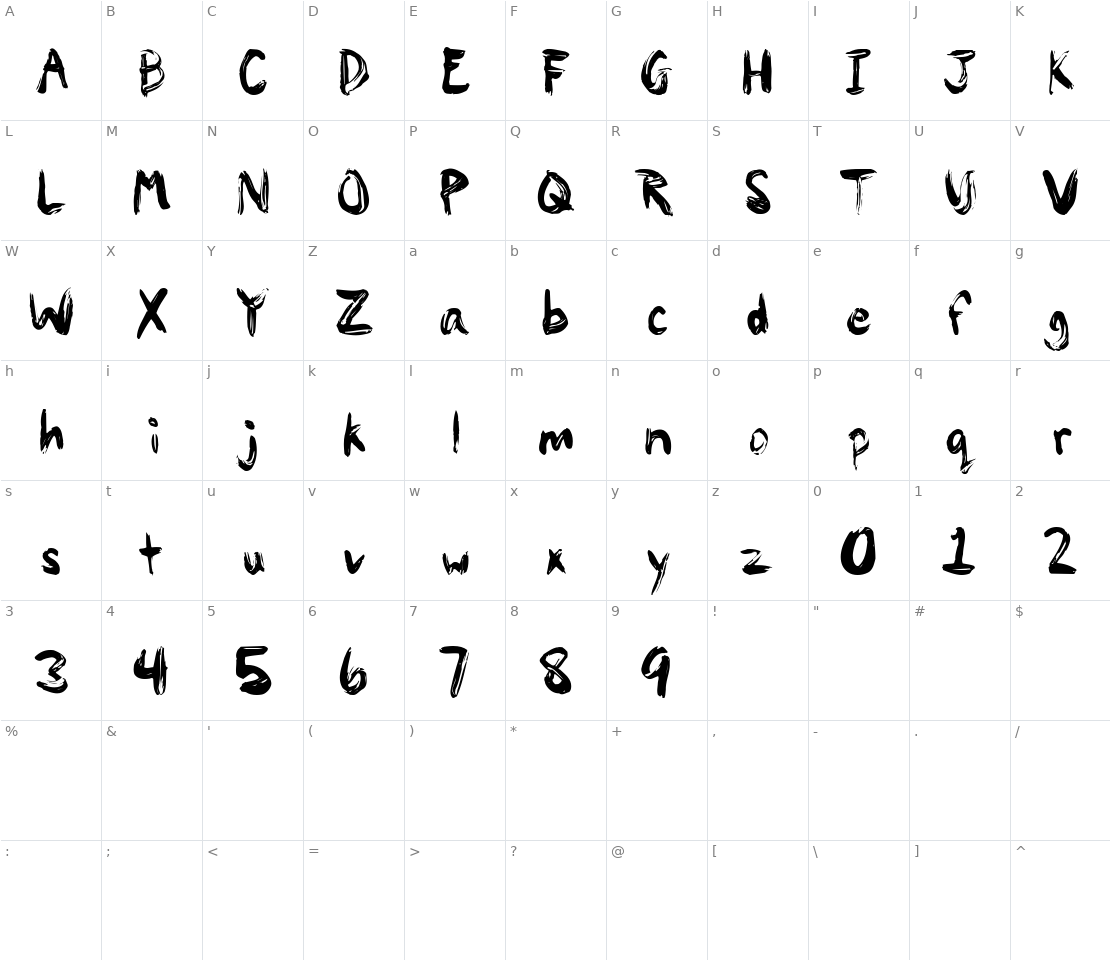
Painty Paint
Painty Paint is a bold brush face from Vin Rowe that carries the messy, physical energy of actual paint on a surface. The strokes are thick and uneven, with visible texture and rough edges that make each letter feel like it was laid down in a single confident swipe. Best kept to headlines, posters, and short display text where its raw, artistic character can do the heavy lifting.